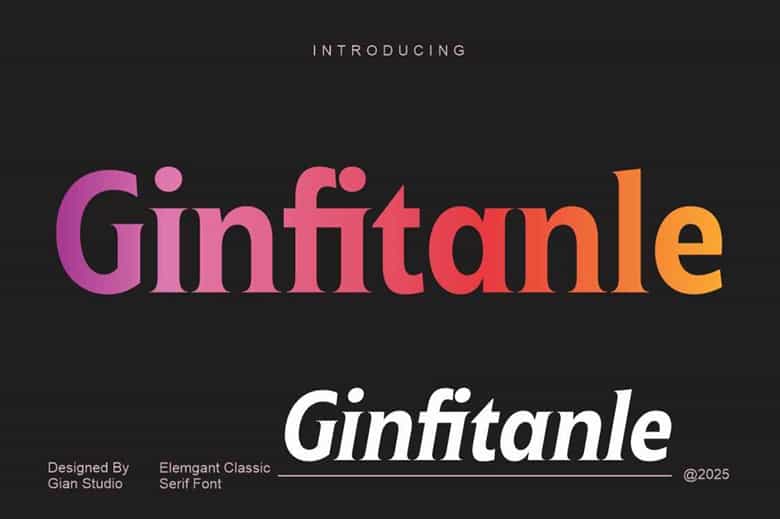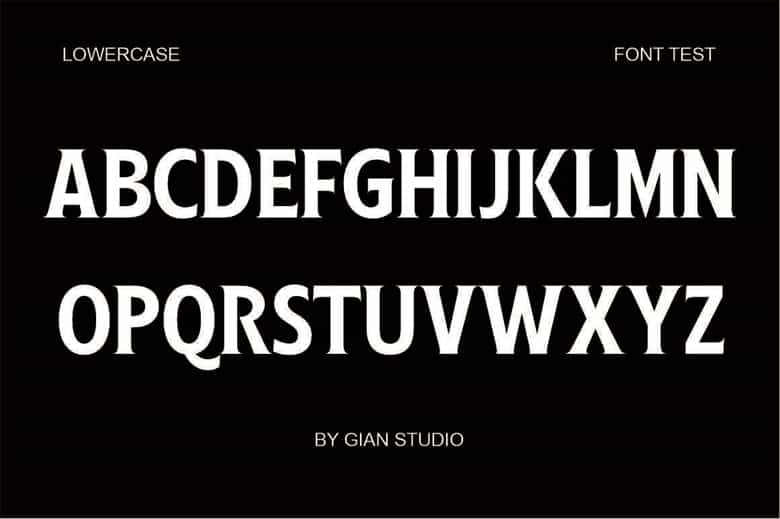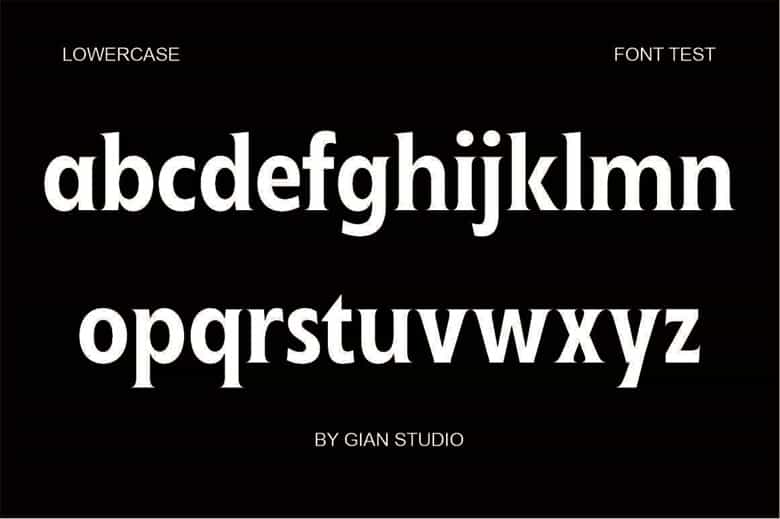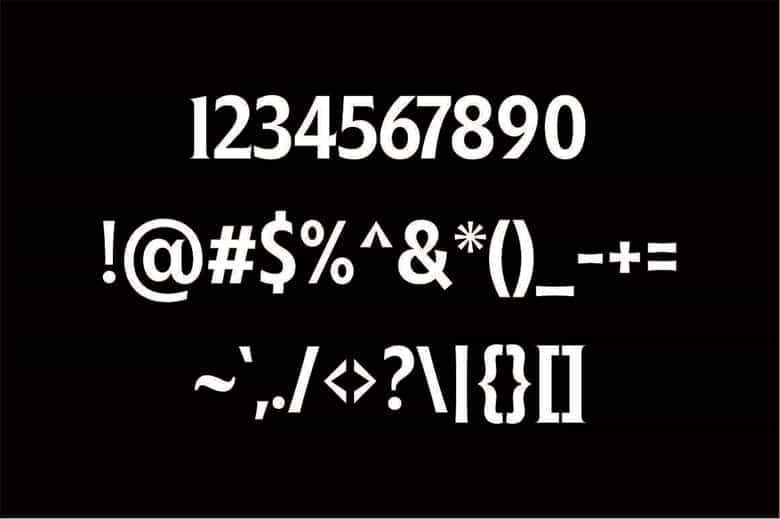
Ginfitanle is a balanced and fashionable modern serif font that has retro style. Comes with 2 Fonts, upright, italic, swollen stems and italics, which increase with the font character. The Open type features make it possible to transmit typography like ligatures or multi language features.